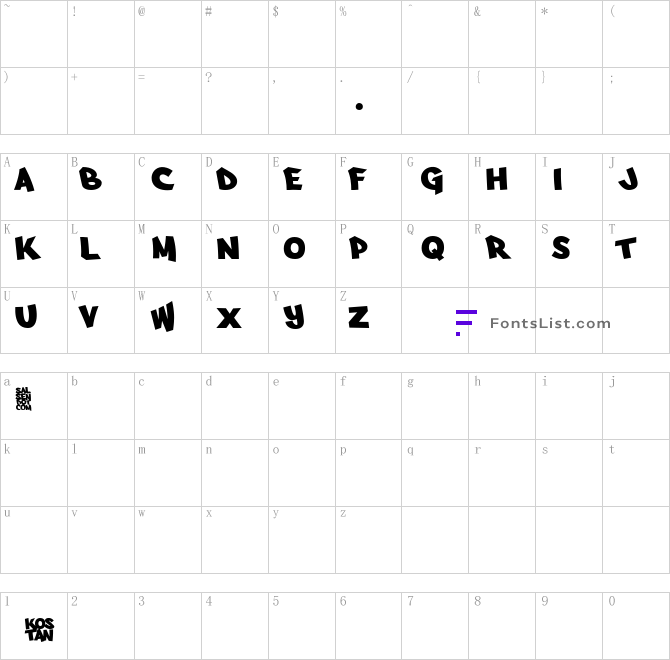
- Font Name:Arfmoochikncheez
Arfmoochikncheez.ttf is a very beautiful artistic font, Arfmoochikncheez.ttf is widely used in the design and printing of various books and pictures,Arfmoochikncheez.ttf has a strong visual impact,Arfmoochikncheez.ttf is a commonly used font in newspapers, magazines and books, and is used in posters, e-commerce Poster design, store design, logo design, font design and other fields.Arfmoochikncheez.